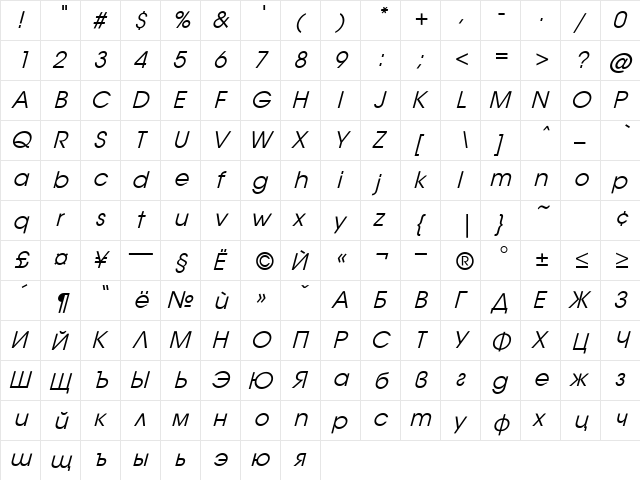
Avanti Italic
Design Context for Avanti Typeface
Avanti is a composed and adaptable typeface that performs quietly and consistently across a wide range of design contexts. The dynamic lean of this cut emphasises speed and emphasis in any layout.
Pro Tip: Use Avanti for emphasis, pull quotes, and subheadings where its slanted energy can add rhythm to the layout.